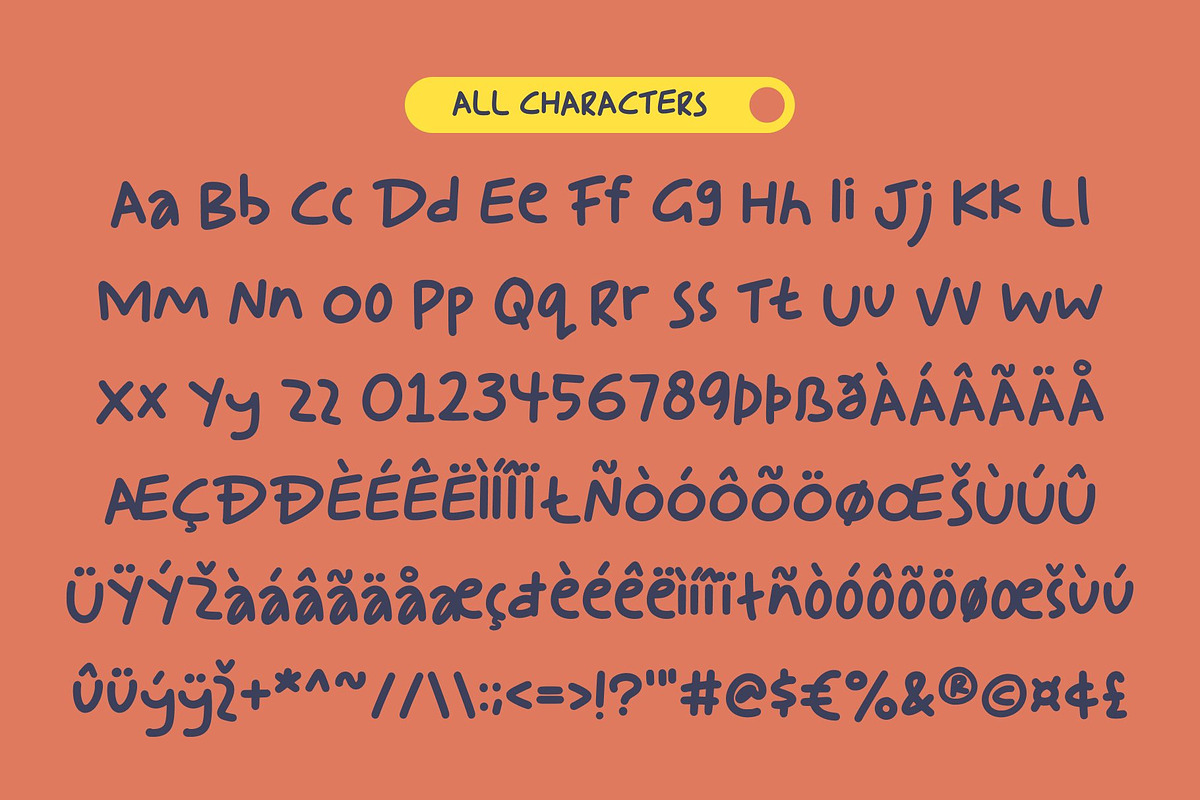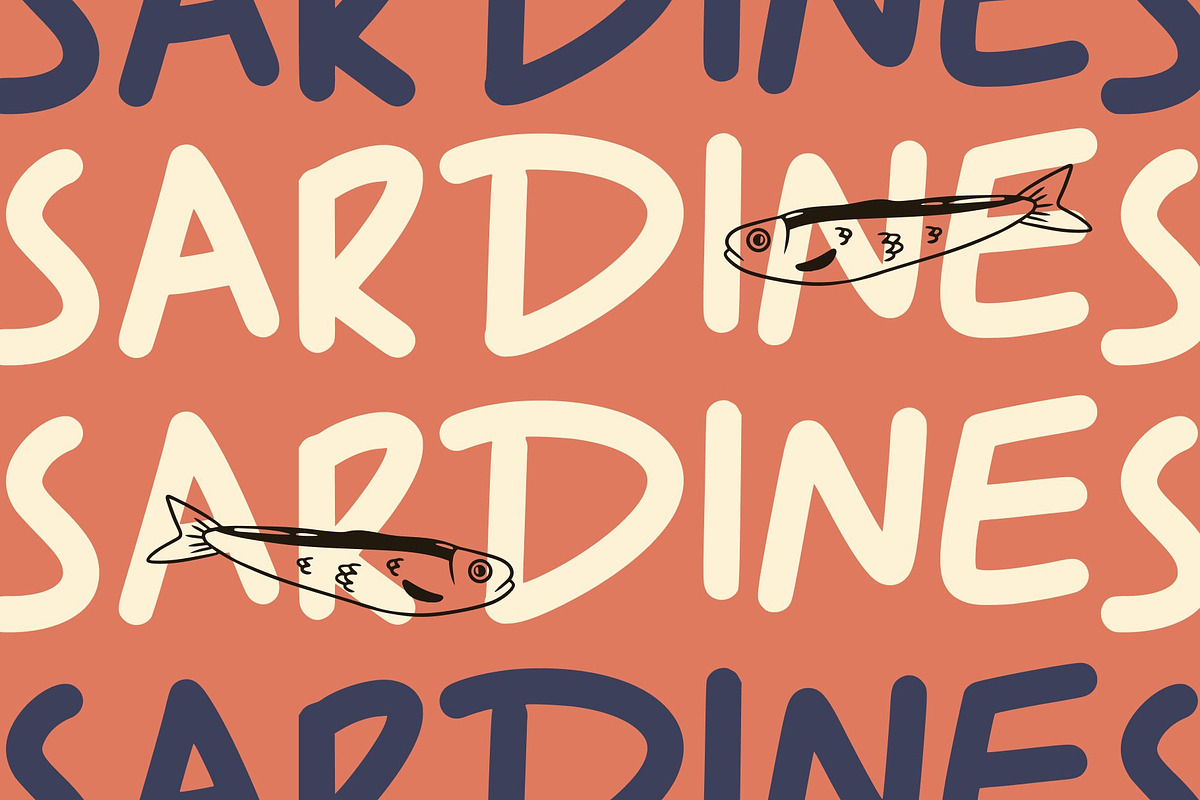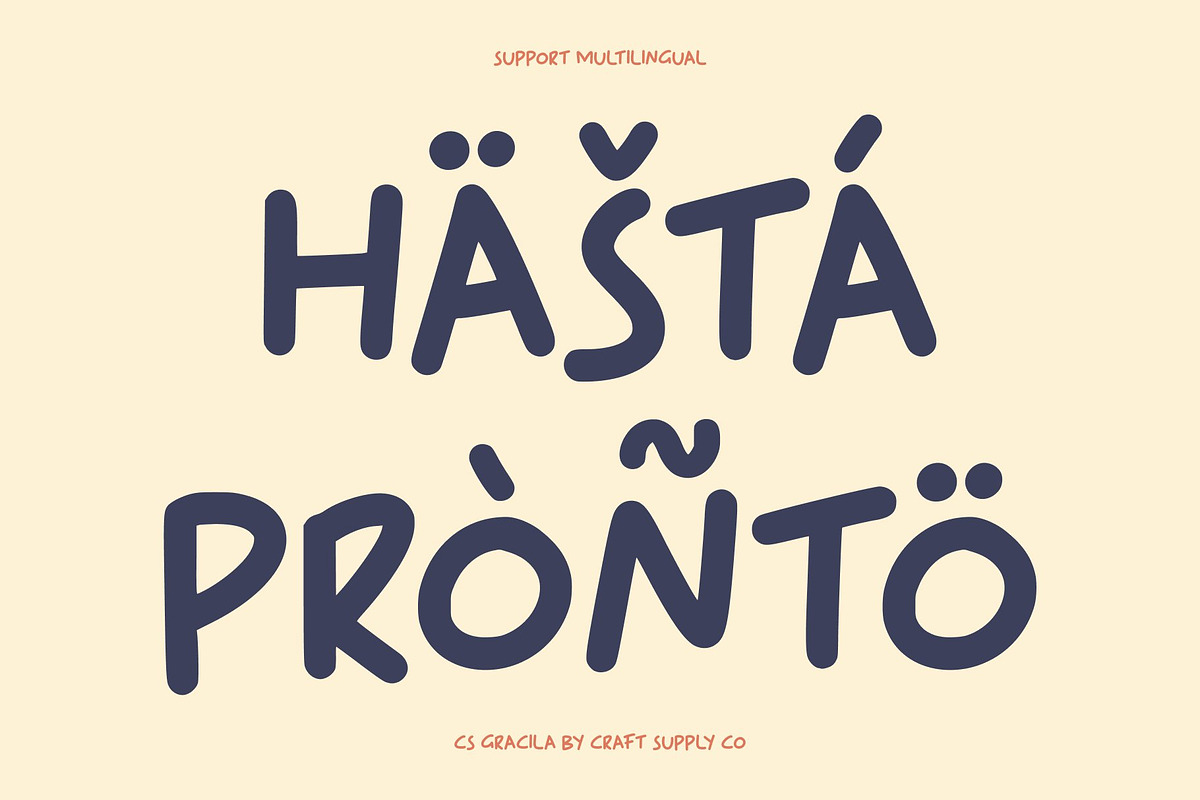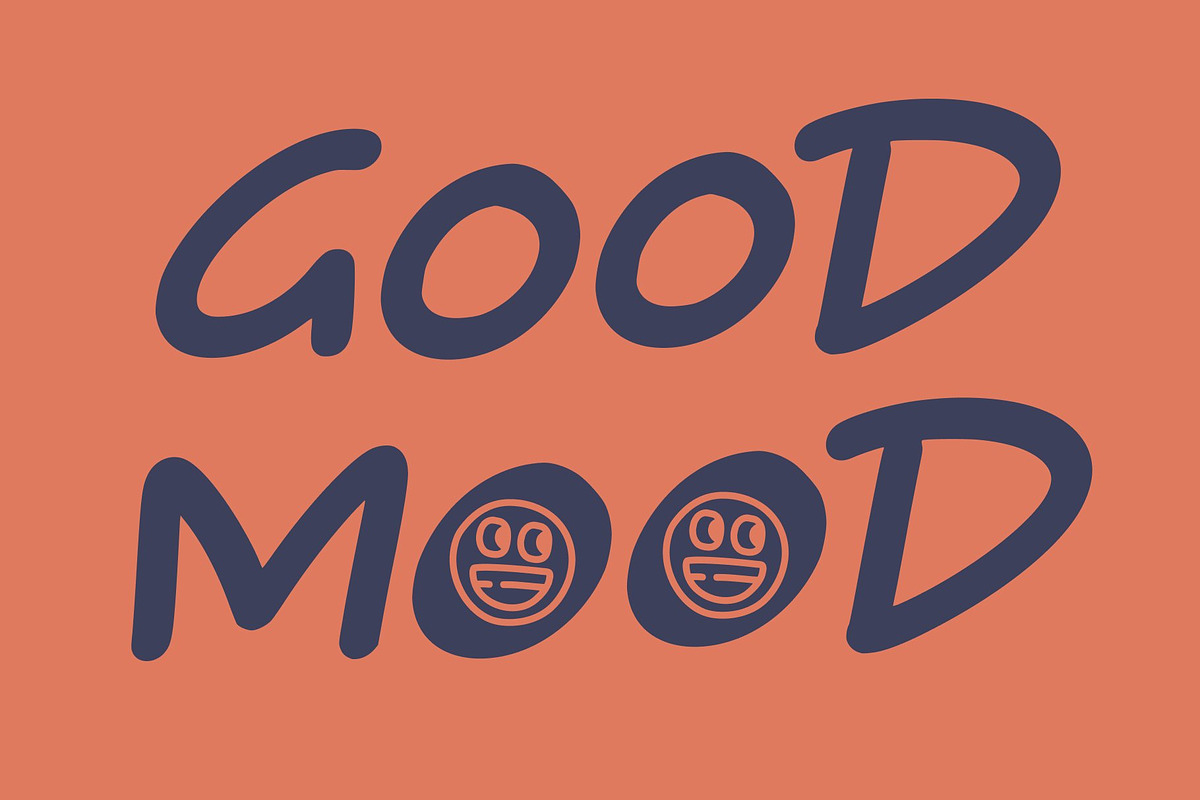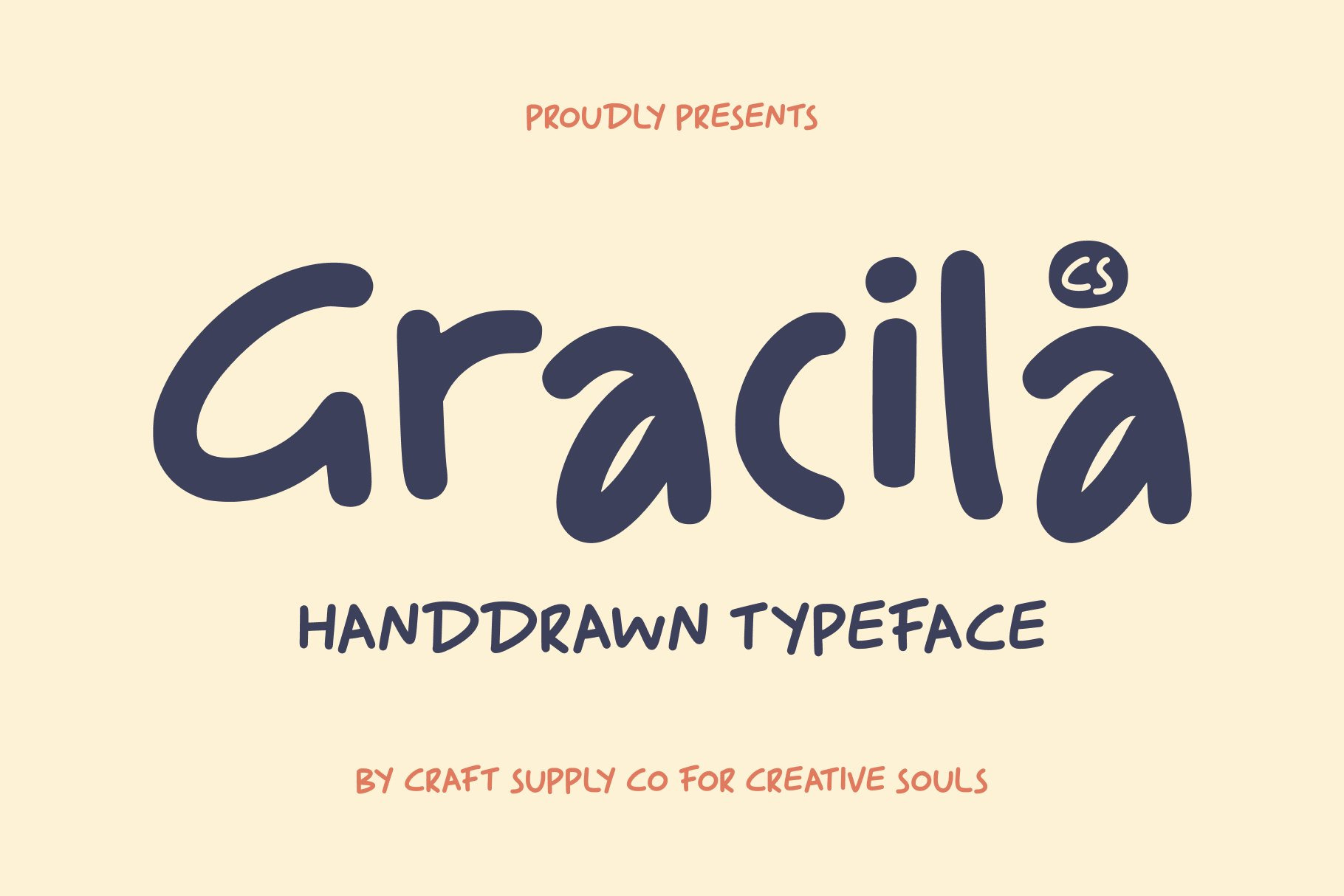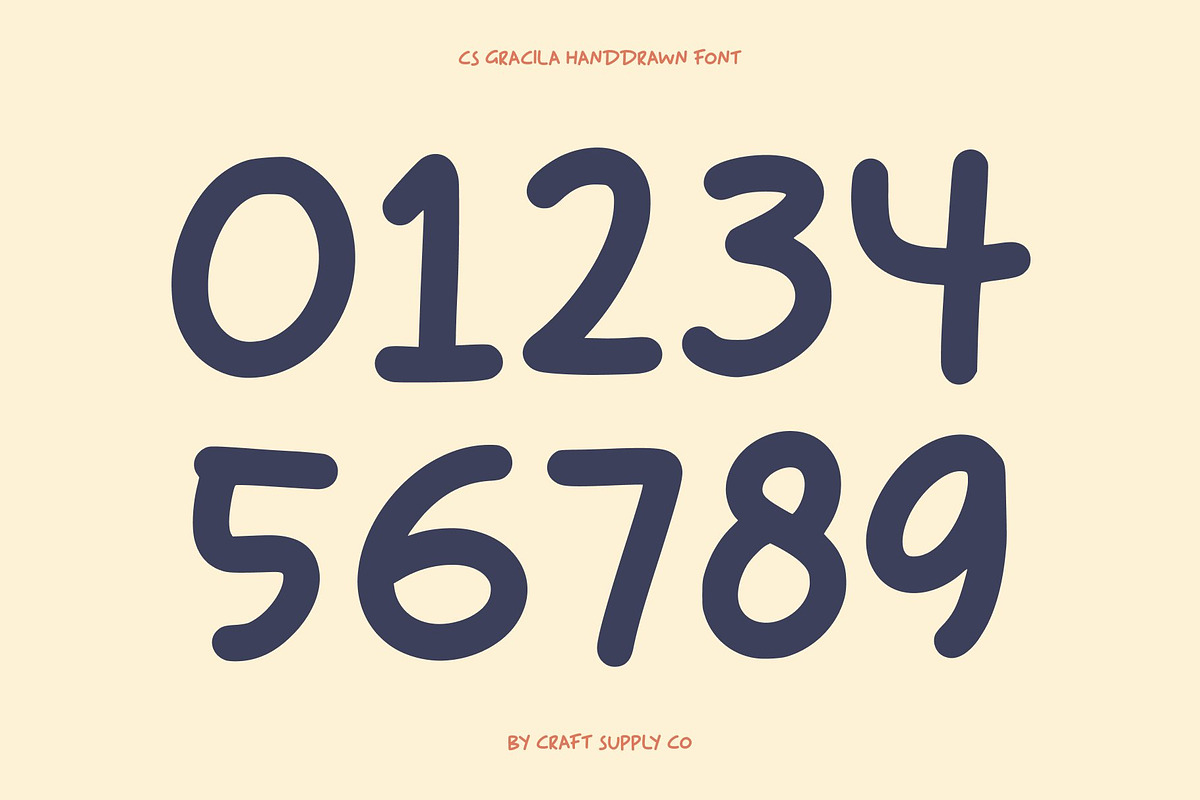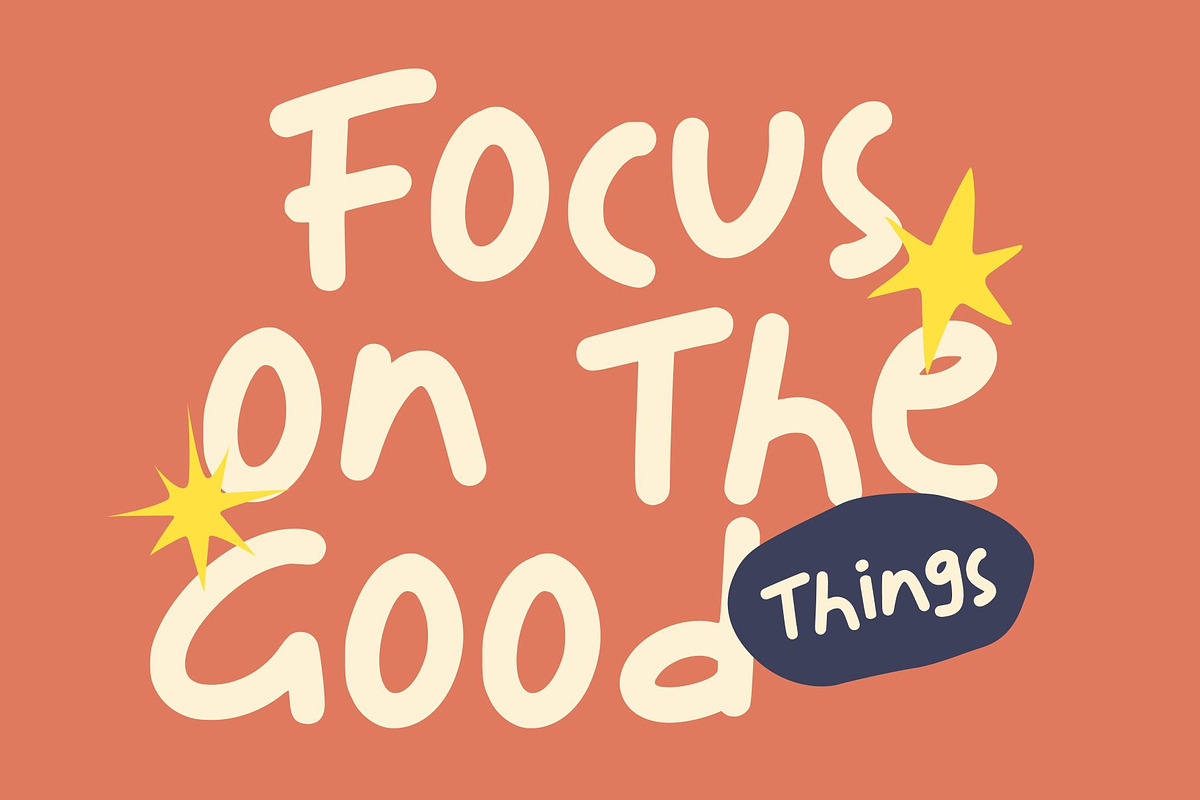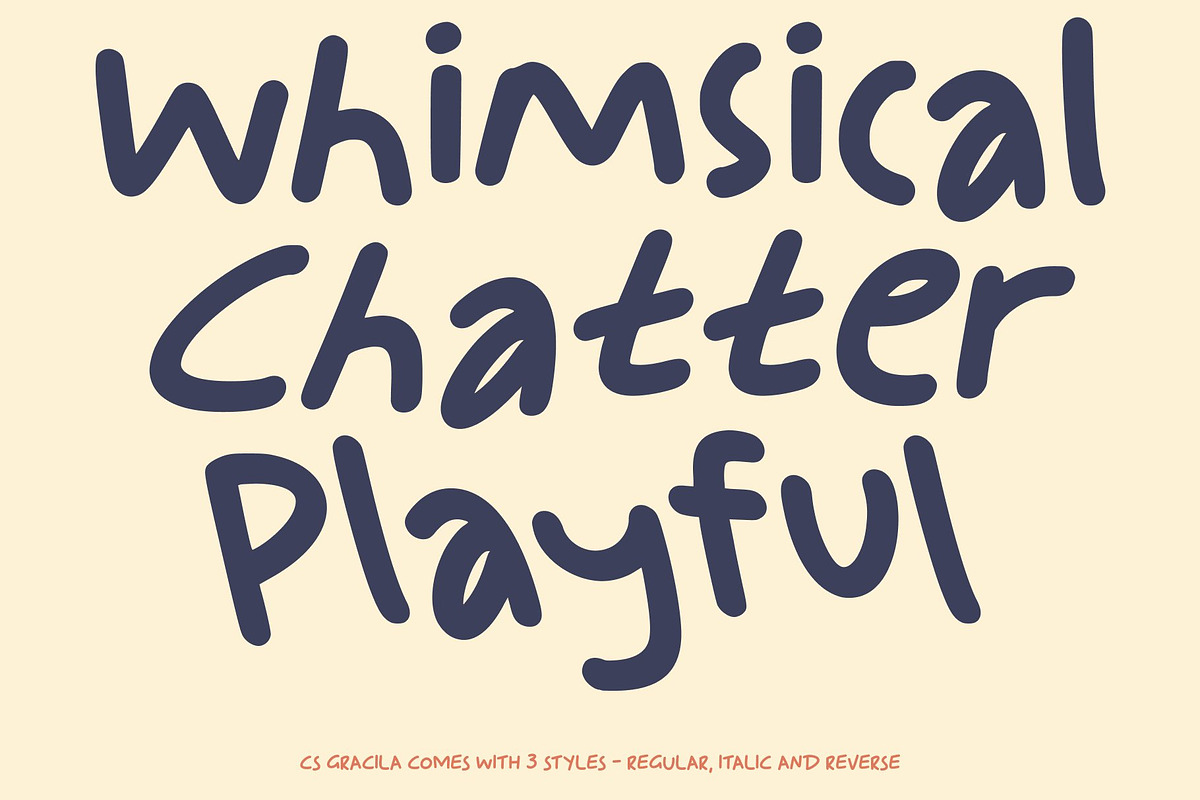
CS Gracila – Playful Font
CS Gracila – Handwritten Style with Youthful Playfulness
Bold Handwritten Expression with Dynamic Personality This is a bold and playful handwritten display font crafted to bring lively energy and youthful charm to every design. Its confident strokes and naturally expressive shapes create a vibrant handwritten feel that stands out effortlessly. With its dynamic personality, adds a burst of creativity and fun wherever it’s used, making it the perfect choice for designers who want to spark excitement and joy through typography.
Playful Shapes for a Cheerful, Youthful Look The playful curves and informal structure of give it a bright, approachable character. Each letter flows with spontaneity, capturing the spirit of carefree writing. This cheerful visual rhythm makes your text feel friendly, inviting, and full of life ideal for projects that aim to convey positivity and youthful enthusiasm.
Bold Strokes for Strong Visual Impact This font’s bold weight ensures maximum visibility and presence. The expressive lines grab attention instantly while maintaining a warm, handcrafted feel. This balance of boldness and playfulness makes it a versatile font that stands out without losing its charm or readability.
Perfect for Fun Projects and Creative Layouts Ideal for fun projects, playful branding, posters, kids’ themes, event designs, packaging, and social media content, helps you create designs that feel energetic and full of character. Whether you’re crafting cheerful titles, expressive quotes, or imaginative visual storytelling.